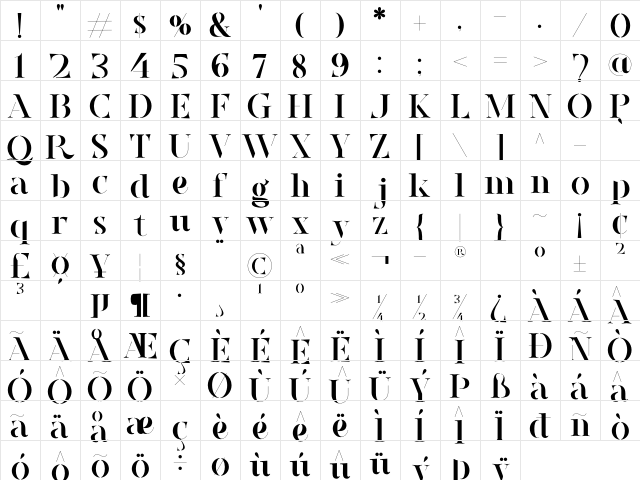
Renuella Stencil Personal Use Only Stencil-Personal-Use-Only Free Font
Renuella Stencil Personal Use Only Stencil-Personal-Use-Only
Design Context for Renuella Stencil Personal Use Only
Renuella Stencil Personal Use Only borrows the utilitarian aesthetic of stencil lettering, with its characteristic cutaways and no-frills construction lending an industrial edge.
Pro Tip: Use Renuella Stencil Personal Use Only at large sizes on packaging, posters, or apparel where the stencil cutaways read clearly. Avoid small sizes where those gaps become visual noise.